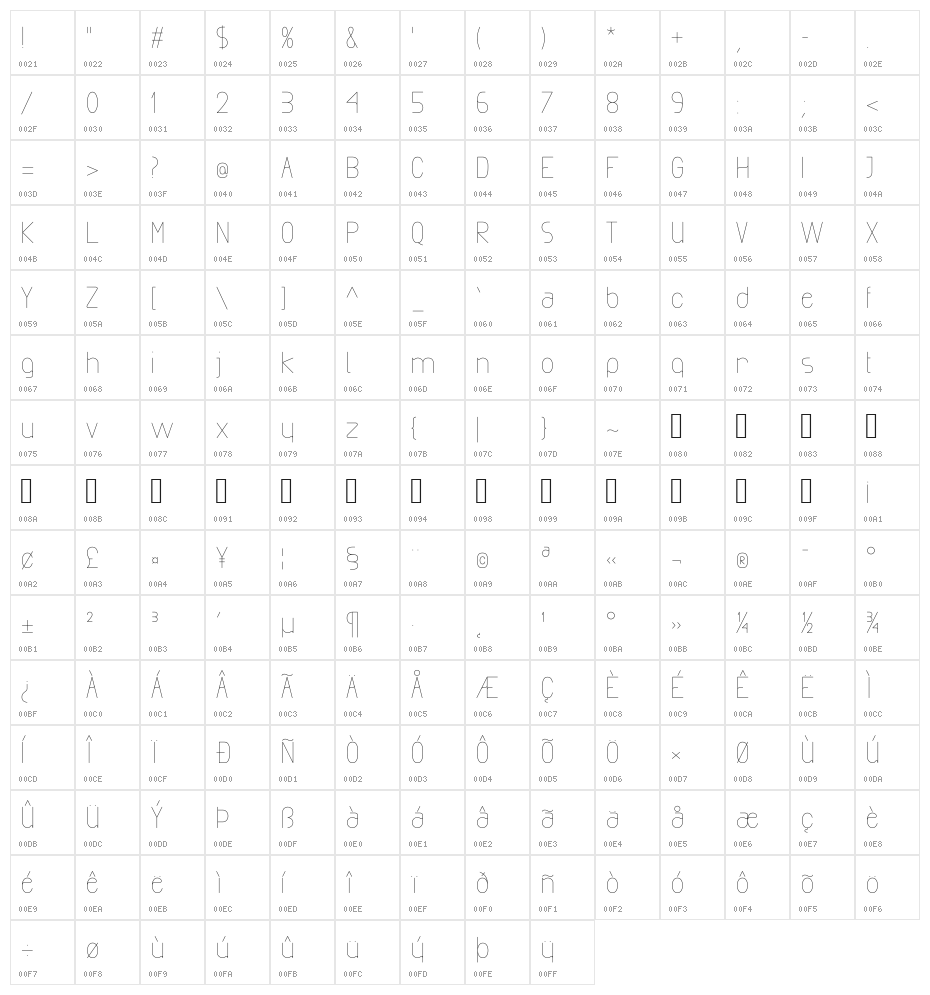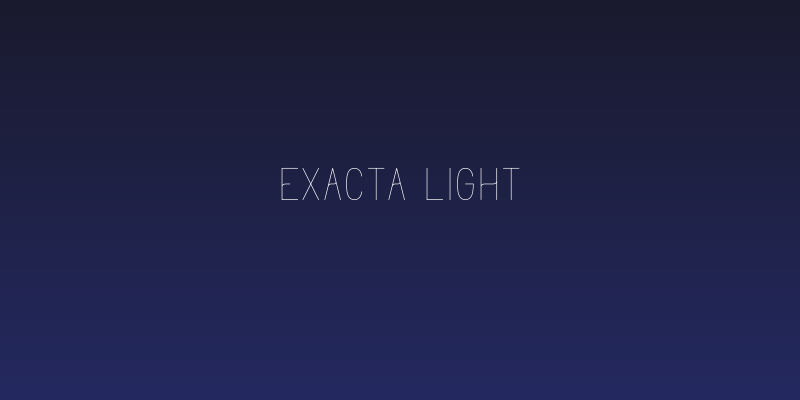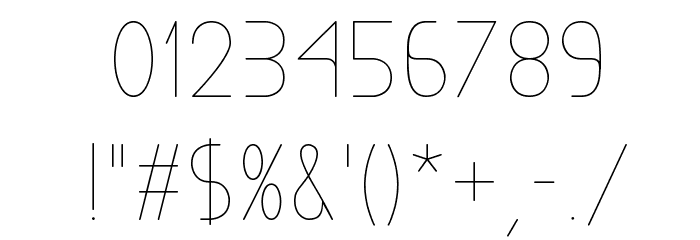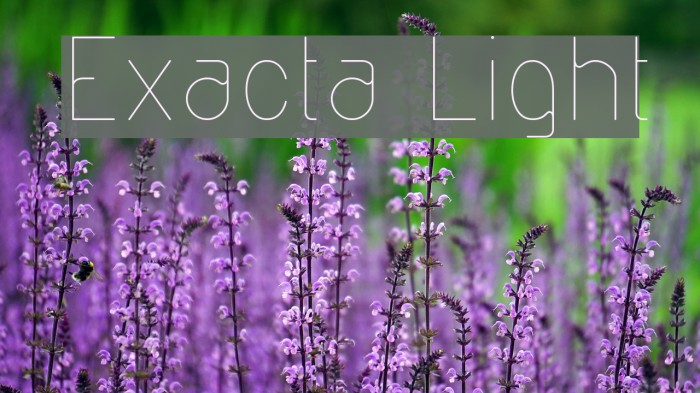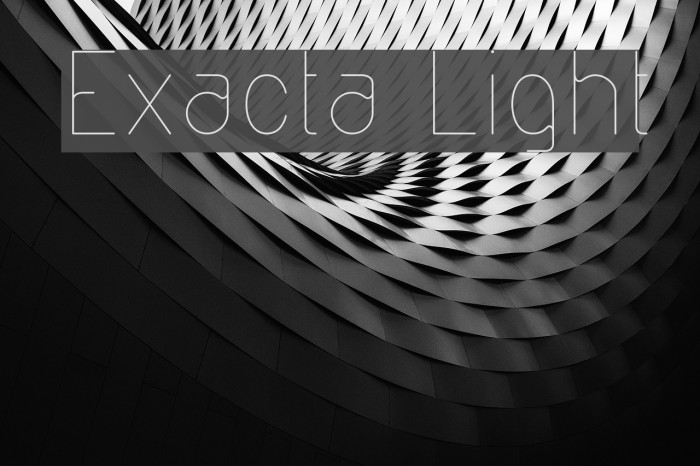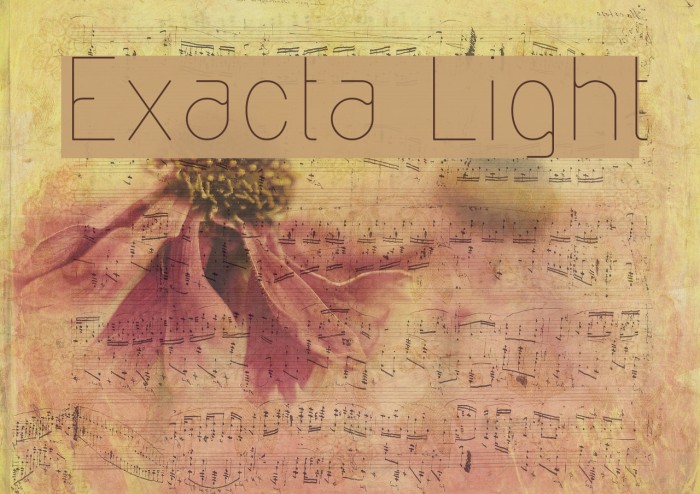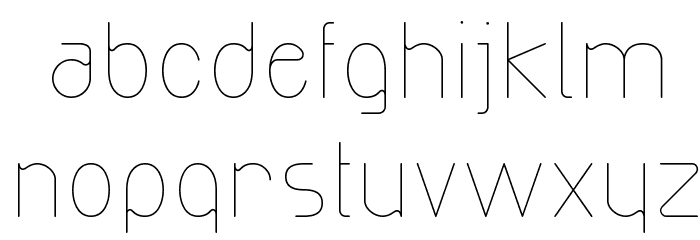
Exacta Light Font
Exacta Light Description
This font features a clean and minimalist design with a geometric structure. The characters are thin and elongated, giving a modern and sophisticated appearance. The uppercase letters are uniform in height, while the lowercase letters maintain a consistent baseline with slight variations in ascenders and descenders. The numerals are proportionate and align well with the overall style. Special characters are designed to complement the alphabet, maintaining the same thin and precise lines. This font is ideal for projects that require a sleek and contemporary look.